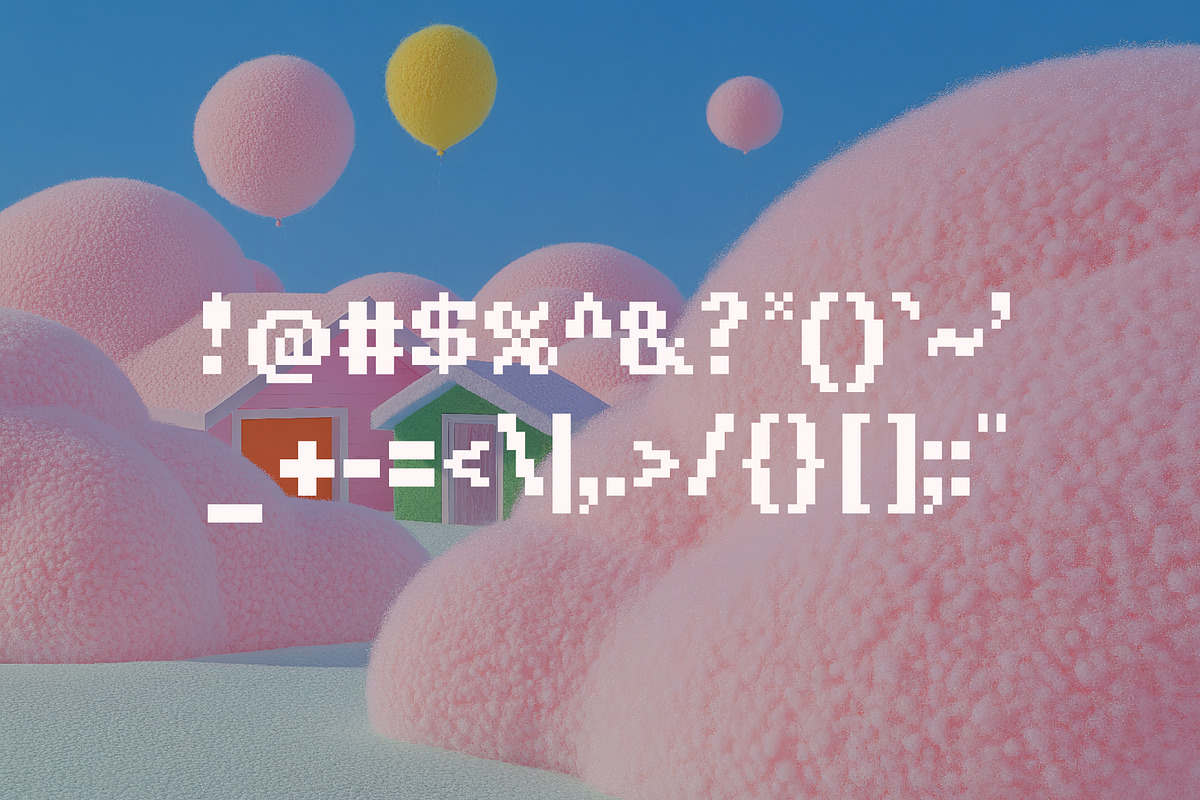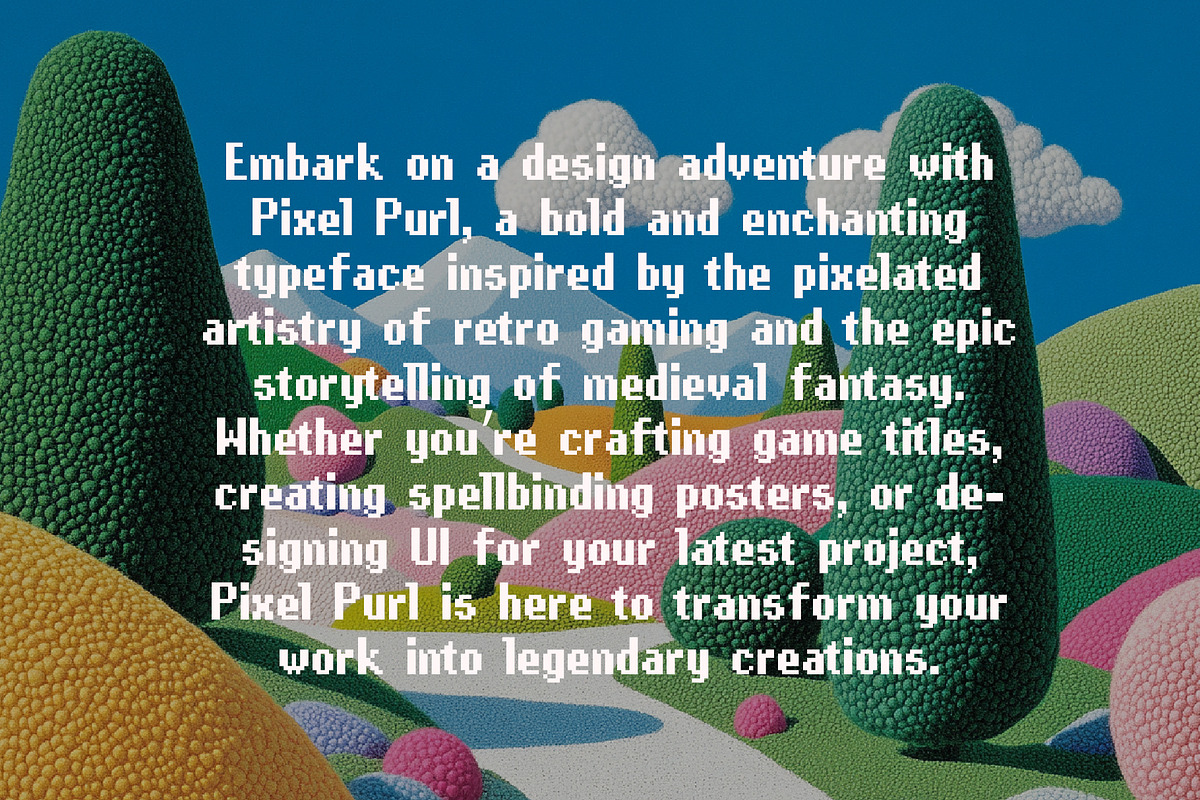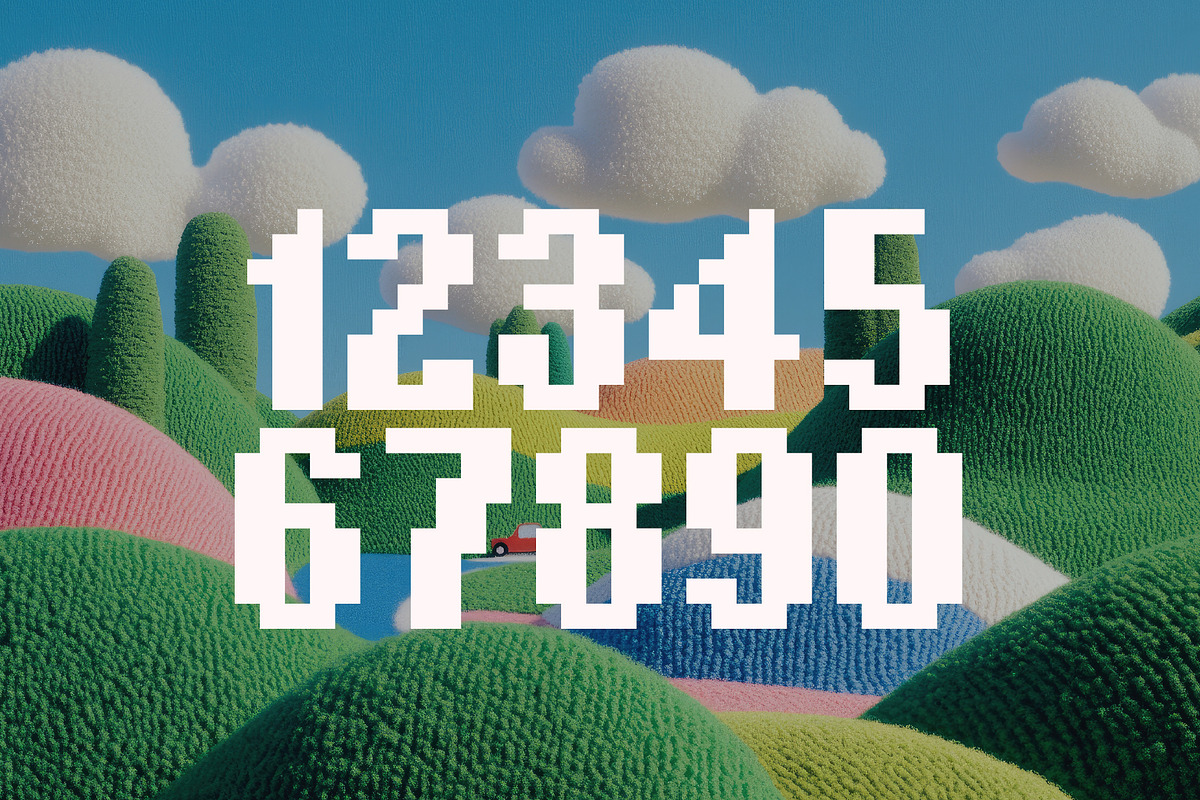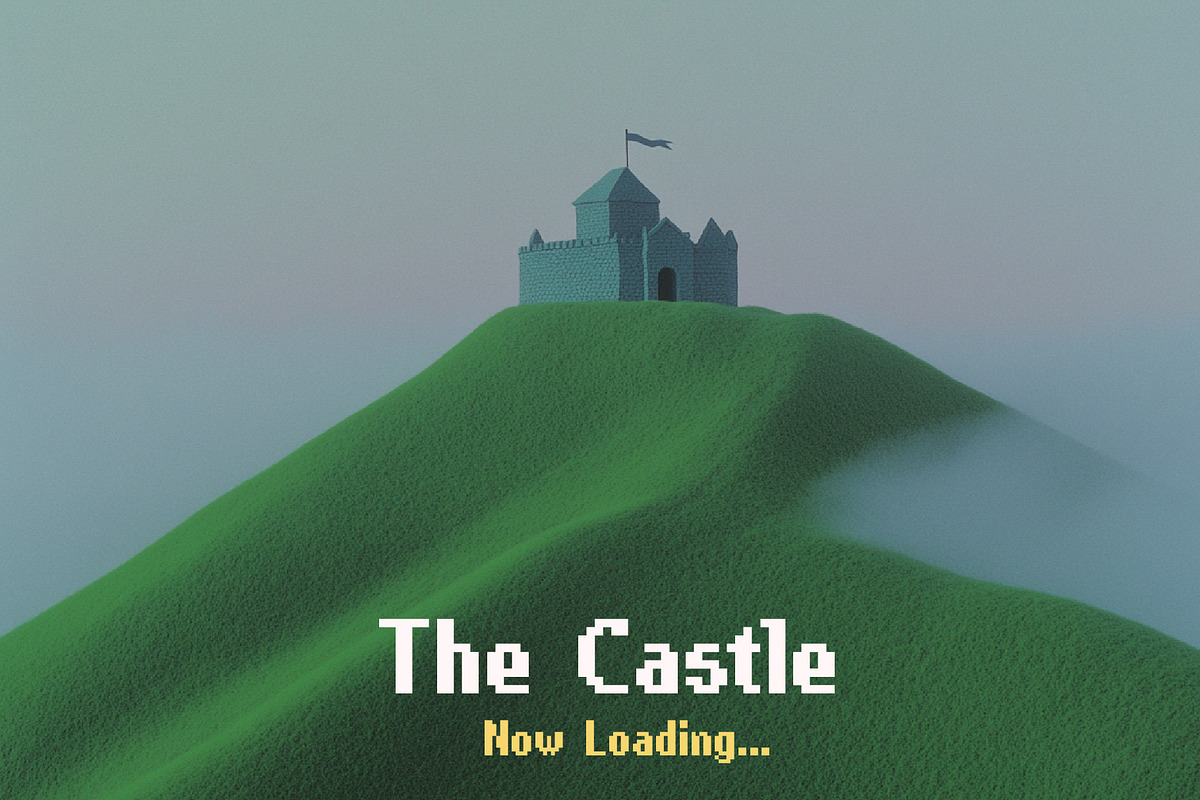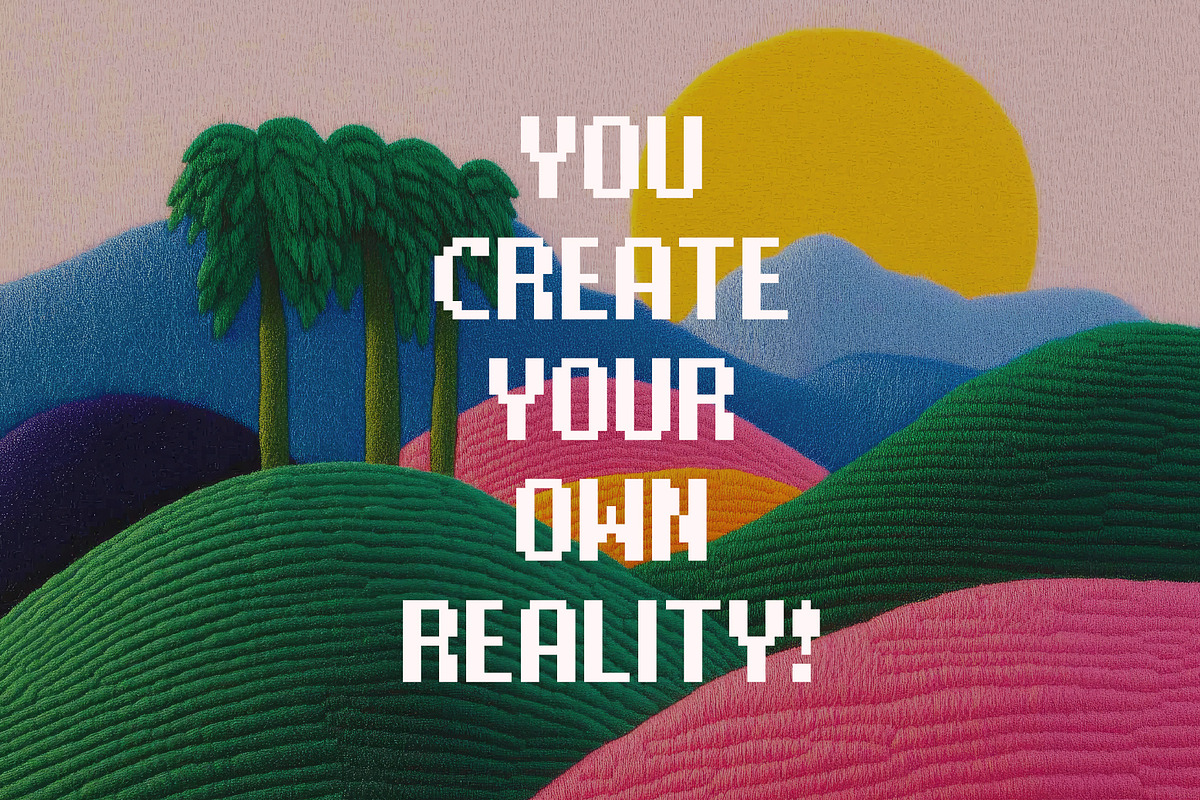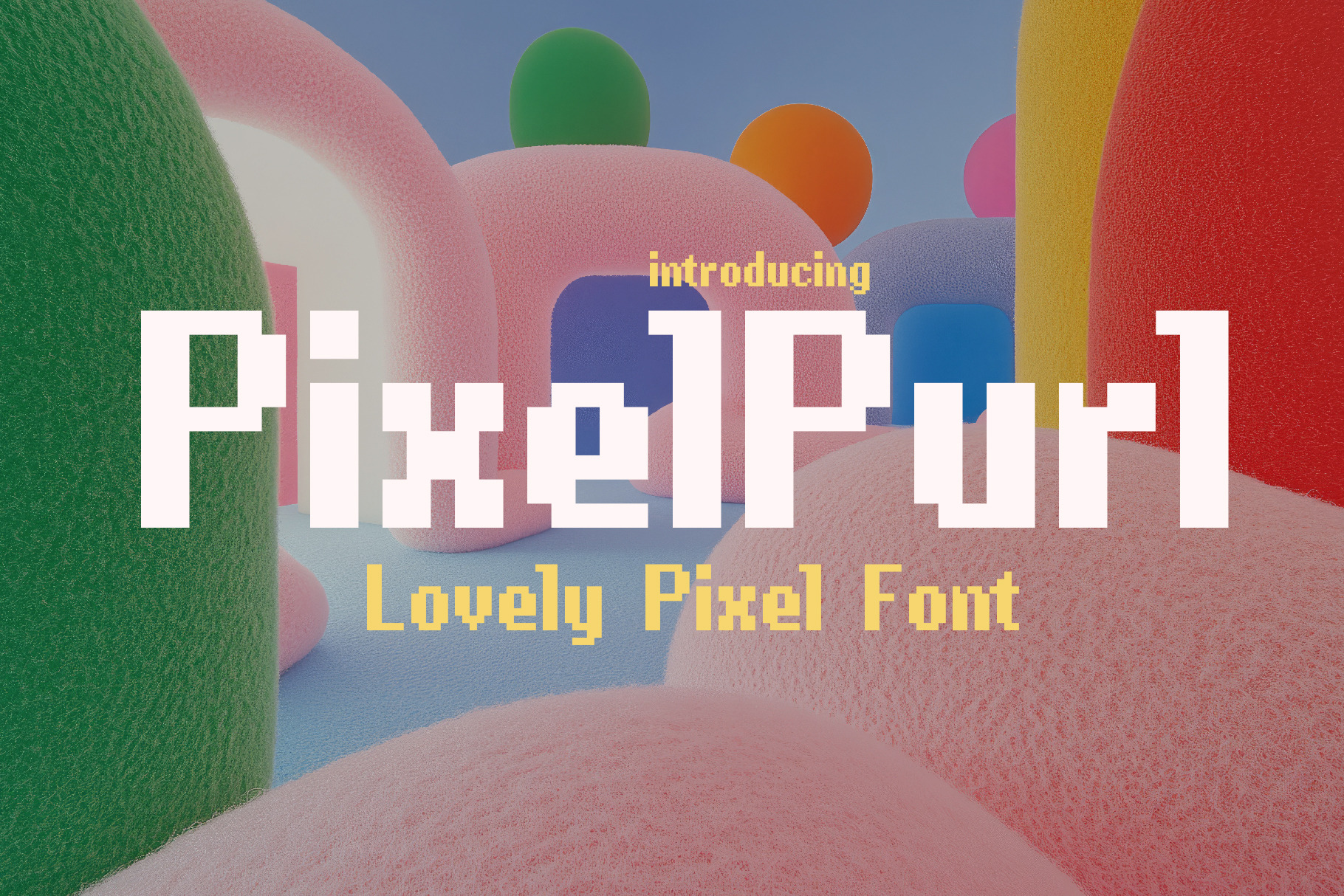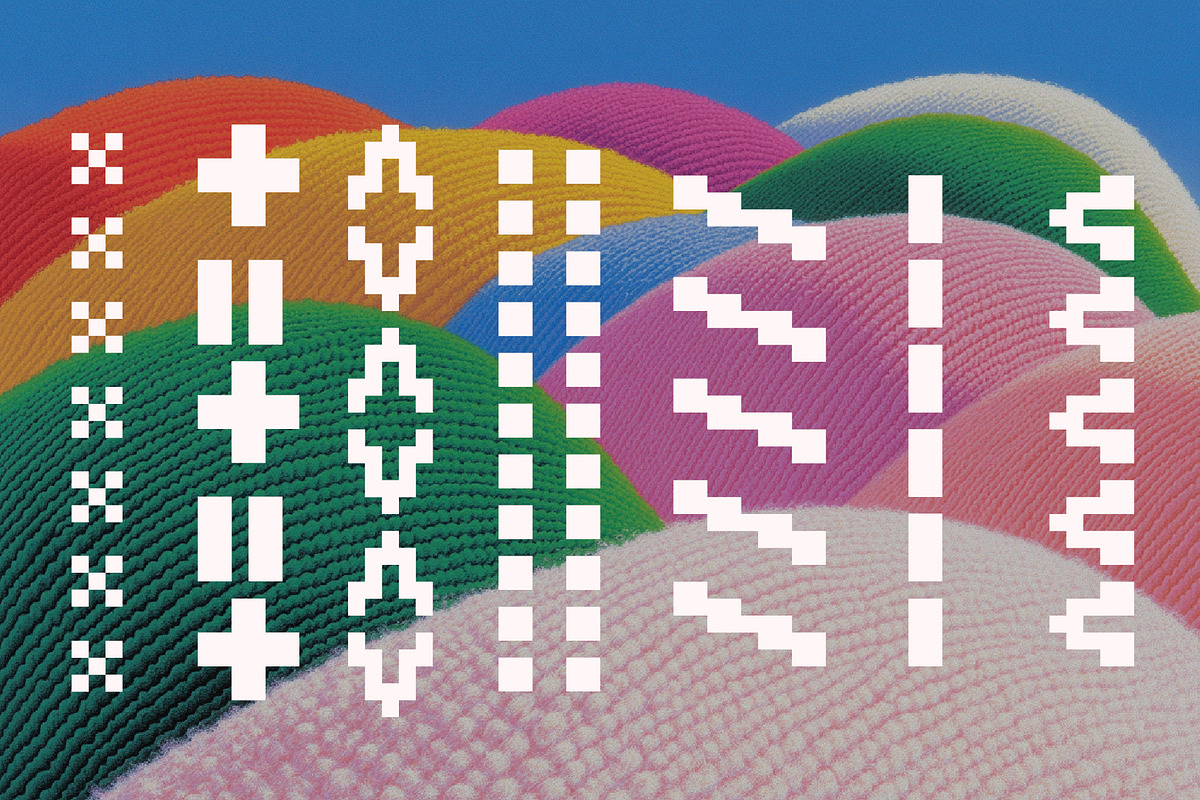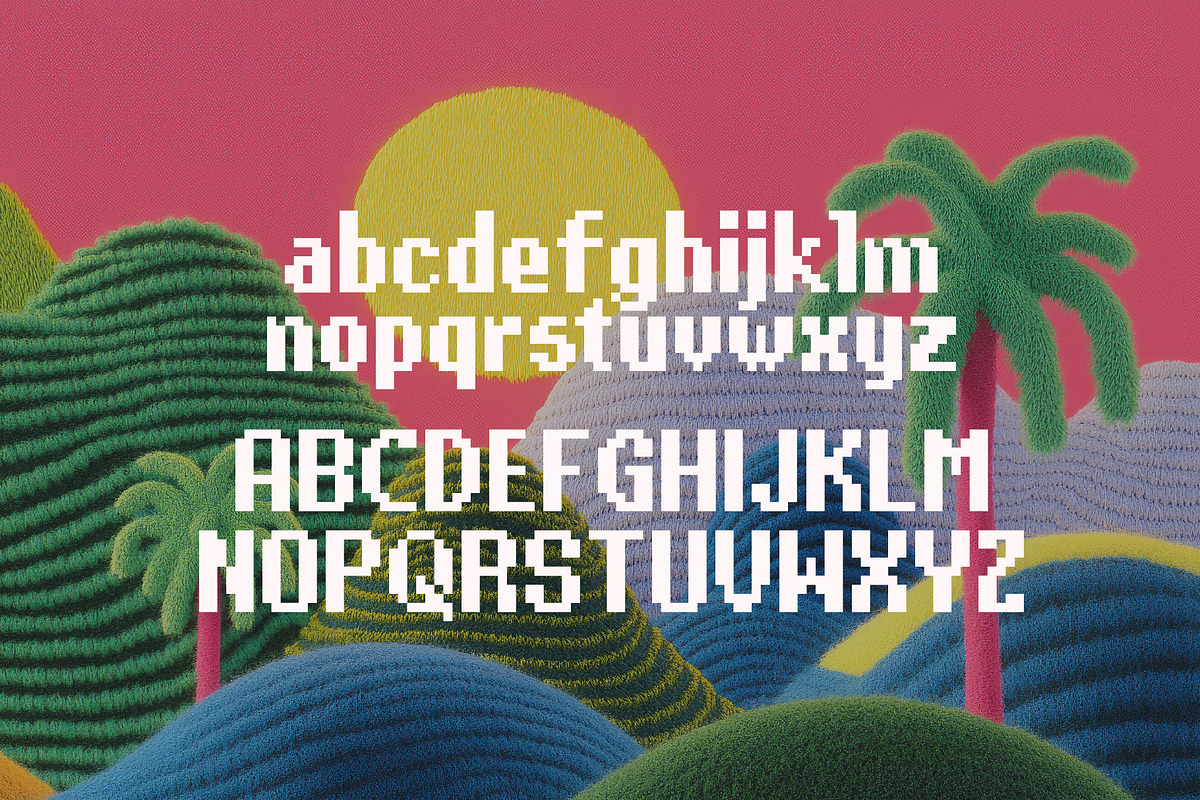
PixelPurl - 8Bit Pixel Font
Embark on a design adventure with Pixel Purl, a bold and enchanting typeface inspired by the pixelated artistry of retro gaming and the epic storytelling of medieval fantasy. Whether you’re crafting game titles, creating spellbinding posters, or designing UI for your latest project, Pixel Purl is here to transform your work into legendary creations.